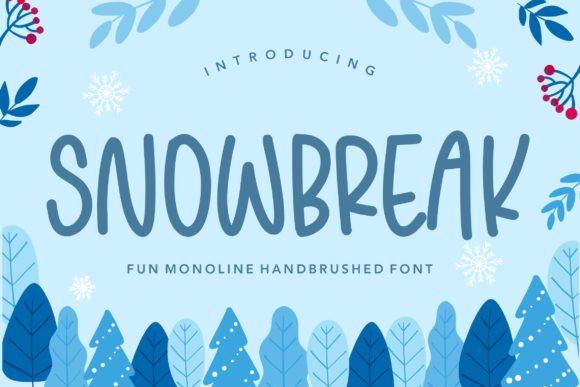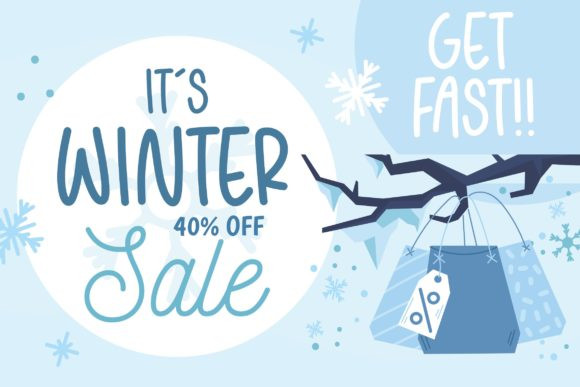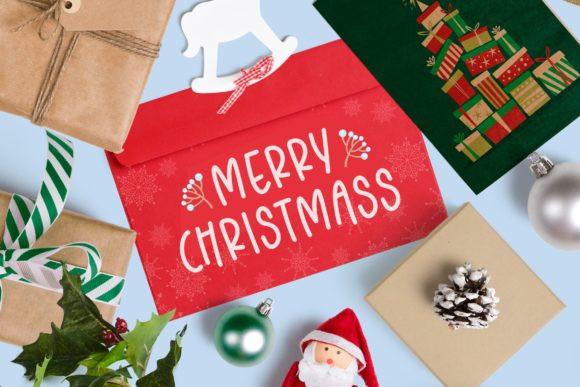
Snowbreak Font
Snowbreak is a modern and casual handwritten font. It is ideal for your winter designs as well as for any design that may need a trendy touch.